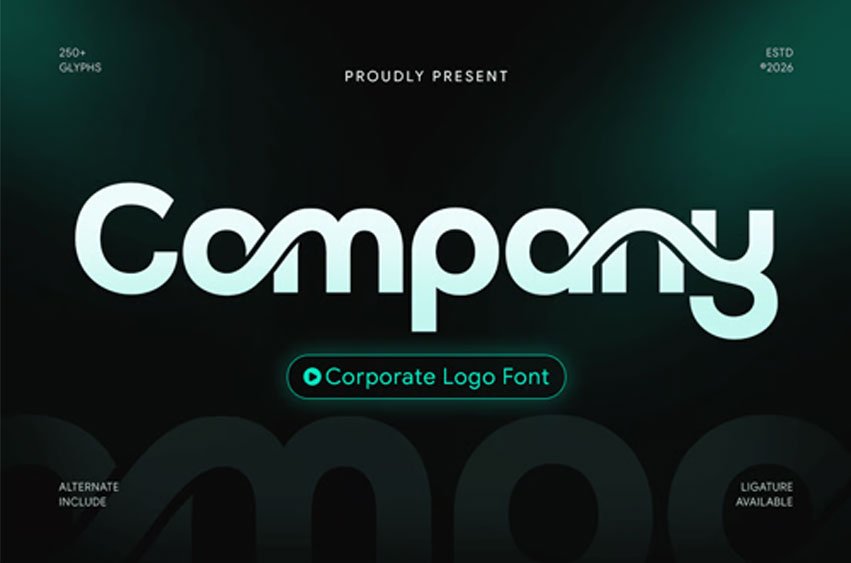
Company Font Corporate Logo Font Company is a professional corporate logo font designed to create a clean, trustworthy, and modern business identity. Featuring balanced letterforms, clear structure, and a refined minimalist style, Company is perfect for corporate logos, business branding, presentations, marketing materials, and professional design projects.
Built for clarity and versatility, Company ensures excellent readability across both print and digital media. Its modern corporate aesthetic makes it ideal for startups, agencies, finance brands, technology companies, and designers seeking a reliable and professional font for strong brand communication.
Company – Corporate Logo Font Features:
- Clean corporate style with professional appearance
- Ideal for logos, branding, and business presentations
- Balanced structure with modern minimalist design
- Perfect for corporate, startup, and professional branding
Build a strong and credible brand identity with Company – the corporate logo font made for modern business.